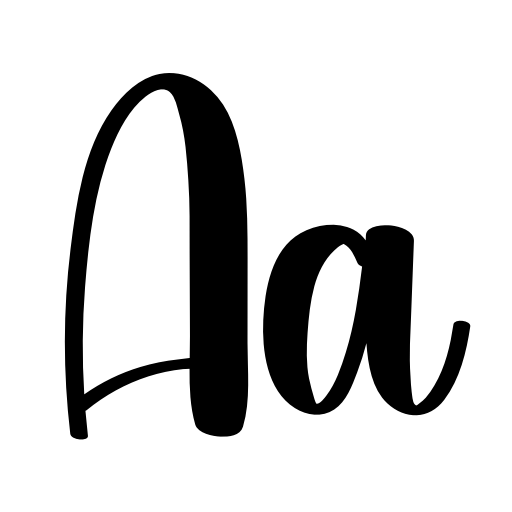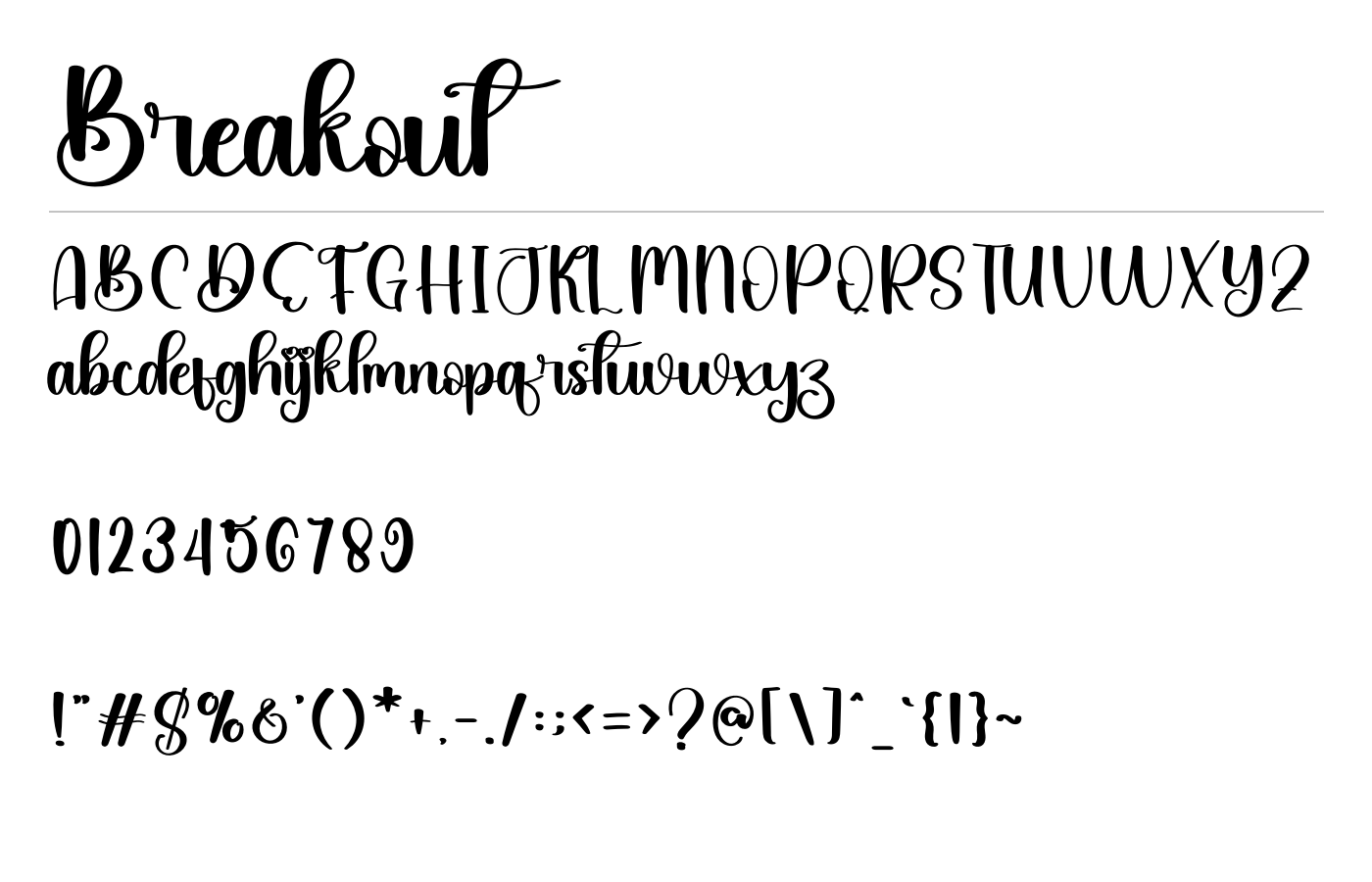
Breakout Font is a playful and elegant script typeface with a hand-drawn feel, featuring smooth, flowing strokes and a lively personality. Its moderate weight and tall x-height enhance readability while the unique curls and flourishes in both uppercase and lowercase letters add charm and character, making it ideal for creative branding, invitations, and stylish headlines that need a whimsical yet polished look.
Breakout Font
About Breakout Font